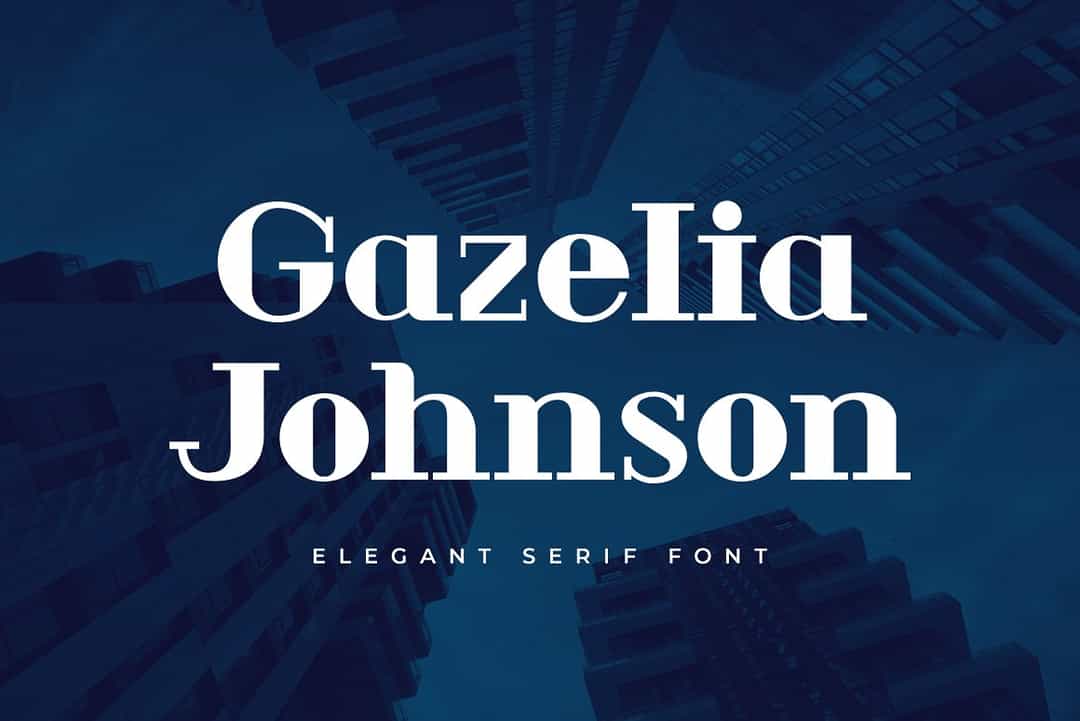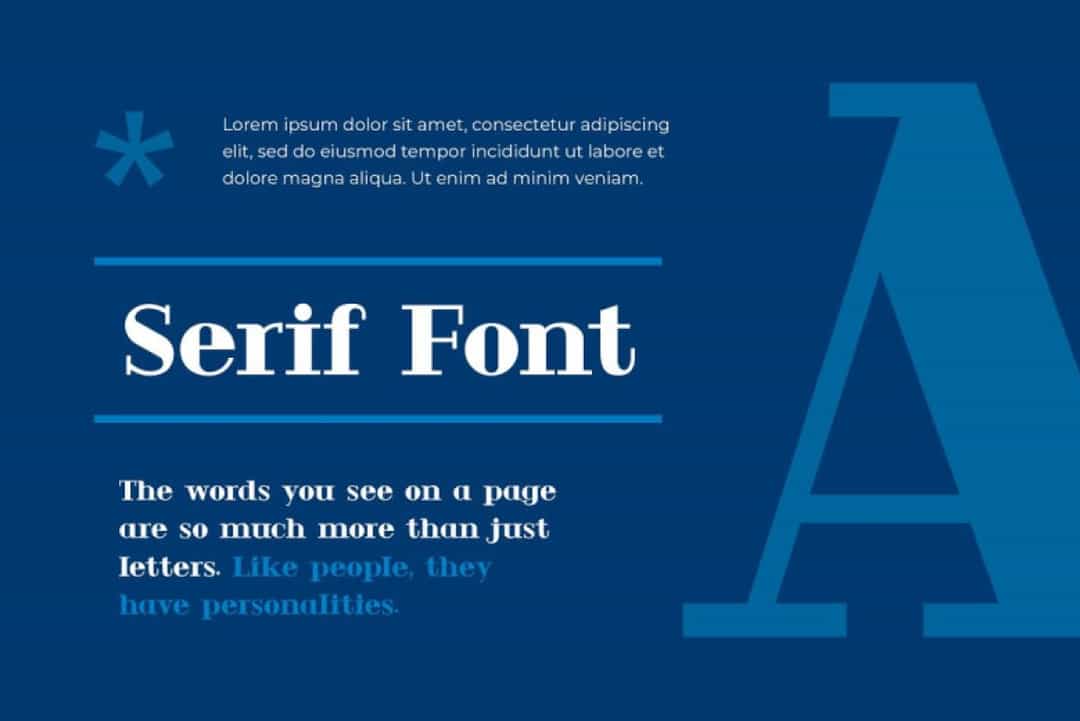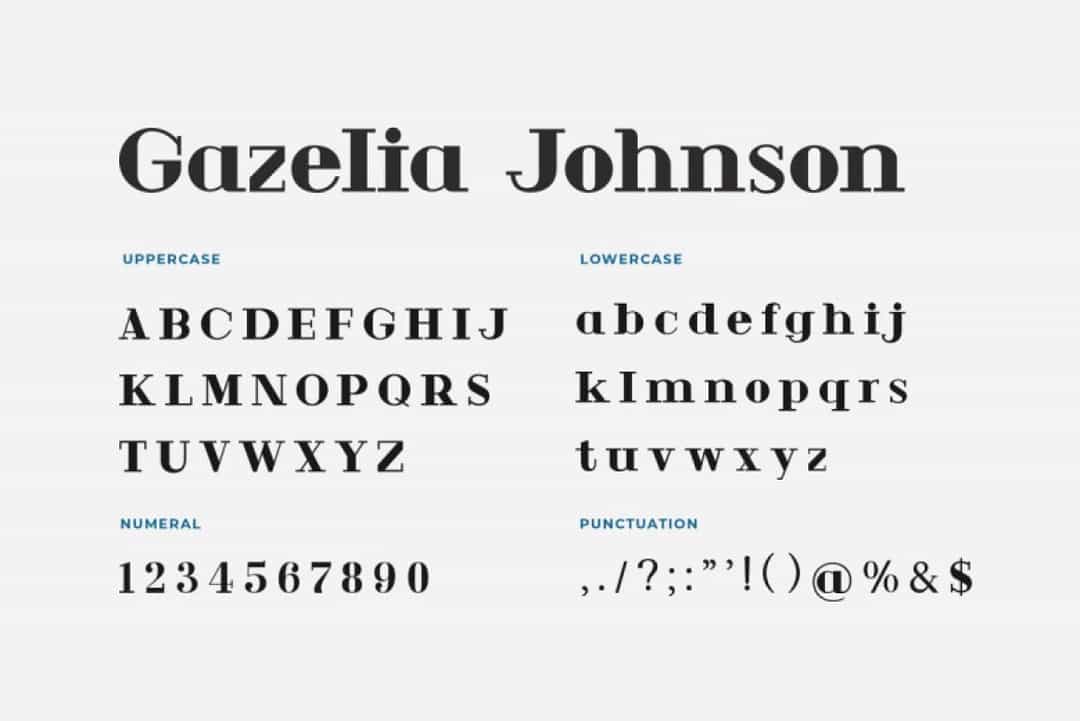
Gazelia Johnson is an elegant yet powerful serif font. Expertly crafted to become an instant fan-favorite, this font will take all your ideas to the next level!